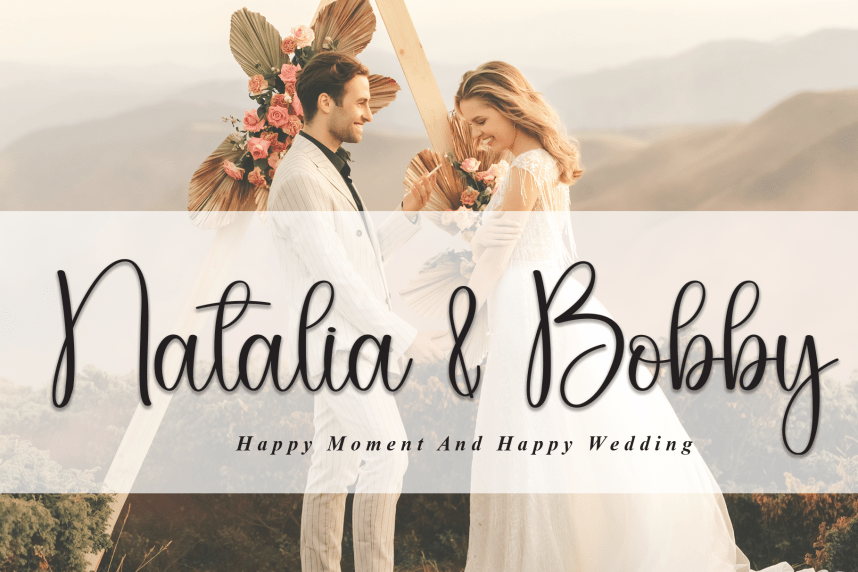
Winter Sunflower – Stylish Handwritten Script Font
Winter Sunflower – Stylish Handwritten Script Font, special creative products for you, our products will give you an extraordinary experience. the latest style letters are perfect for wall displays, wedding invitations, social media post logos, advertisements, product packaging, product designs, labels, photography, watermarks, invitations, stationery, and any project that requires taste handwriting.